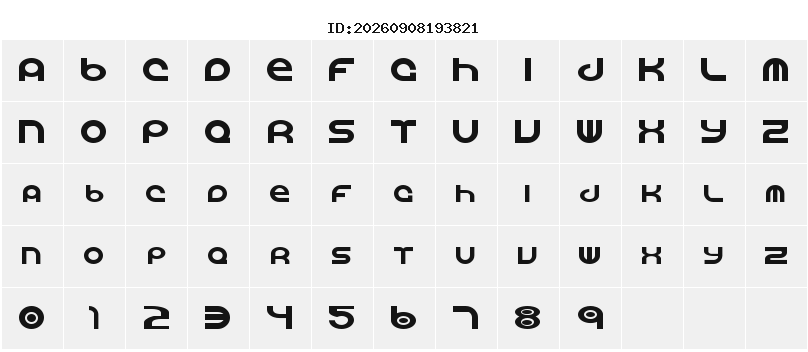
• Font Name: Vocaloid
• Full Font Name: Vocaloid
• Version: Version 1.00 June 14, 2008, initial release
• Designer: Rob Barba
• Manufacturer: Megami Studios
• Description: Vocaloid is a sleek, tech-style fonts ready for use in titles or specialty design usage.
About Vocaloid.ttf
Vocaloid.ttf is a modern, elegant sans-serif font designed for ultimate readability and visual harmony. Perfect for branding, headlines, web design, and print materials.